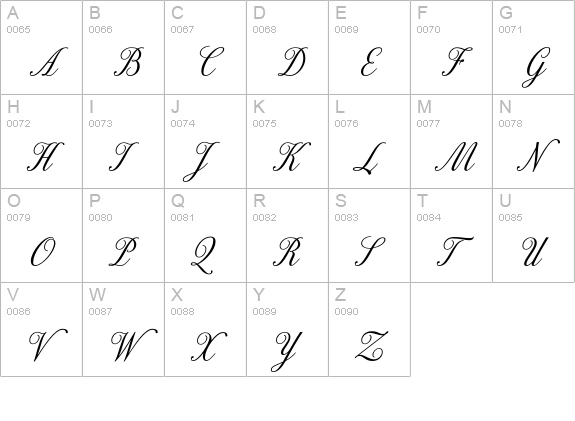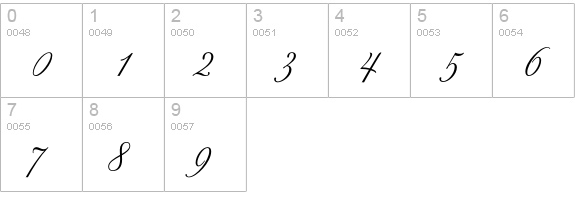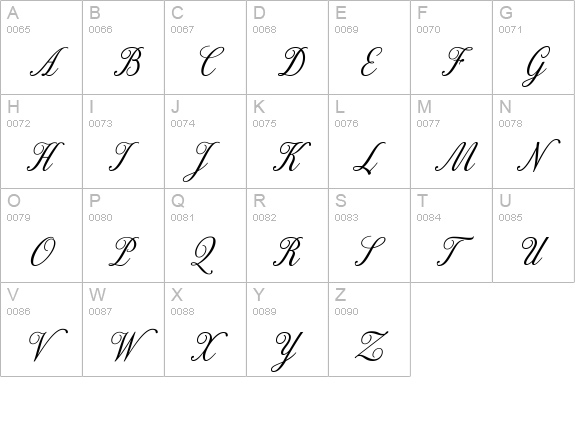
ExcelsiorScriptText Font Details
ExcelsiorScriptText font is a stunning and elegant typeface that exudes sophistication and charm. Its delicate strokes and graceful curves make it perfect for adding a touch of class to any design project. This timeless font is ideal for creating invitations, greeting cards, logos, and more. The best part is that ExcelsiorScriptText font is completely free to download at FontsMarket.com. Whether you're a professional designer or a hobbyist looking to enhance your creations, this font is a valuable addition to your typography collection. Embrace the beauty and versatility of ExcelsiorScriptText font today and elevate your designs to new heights.